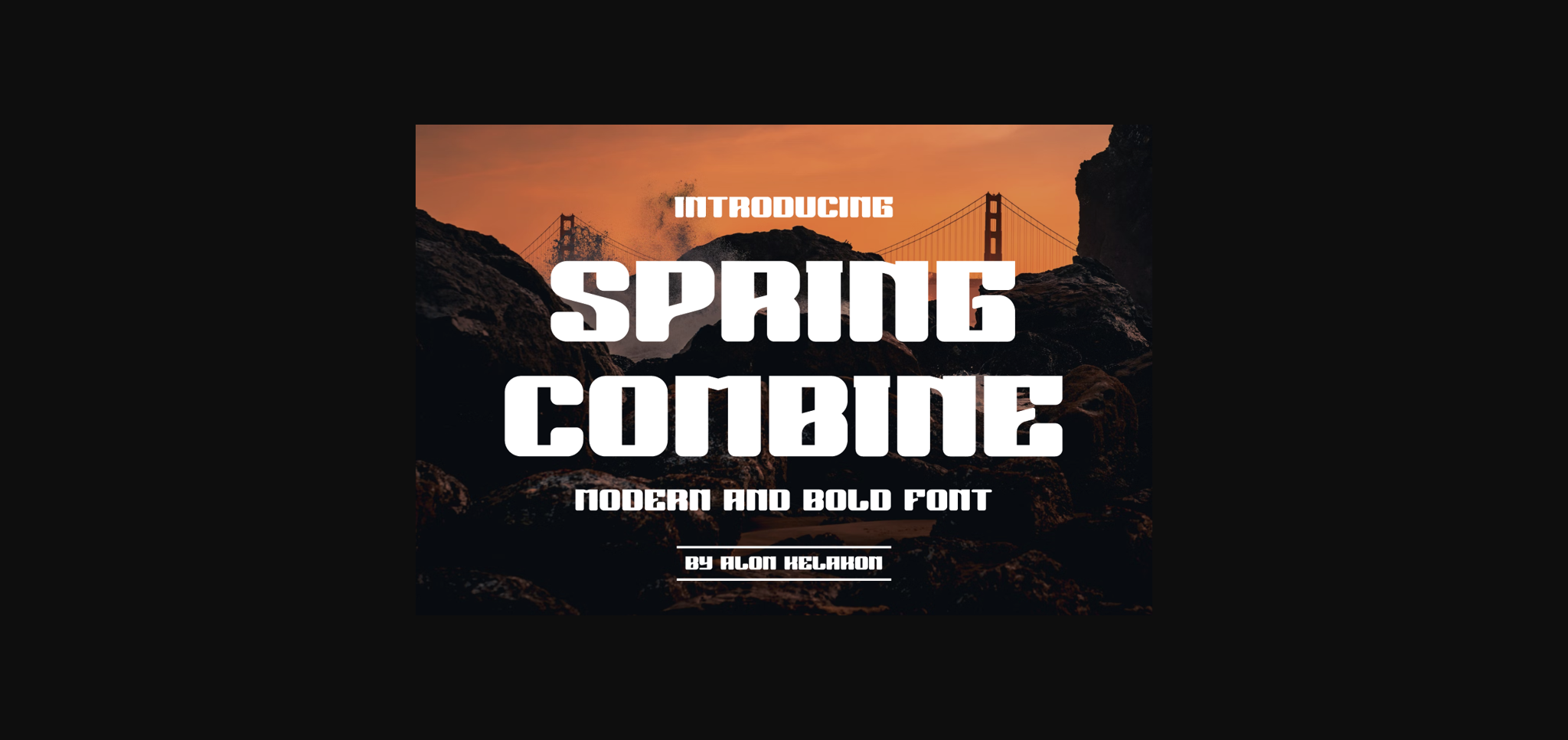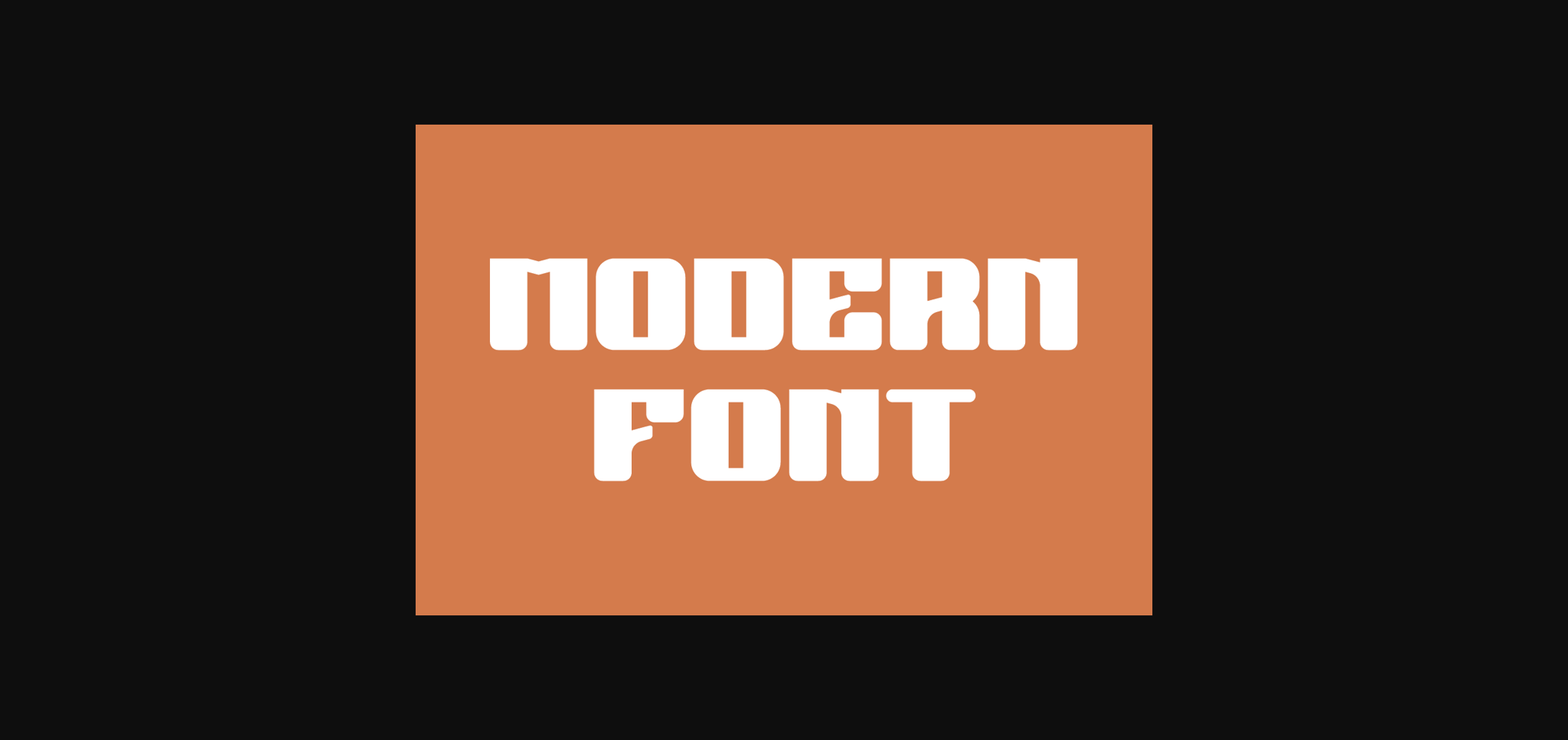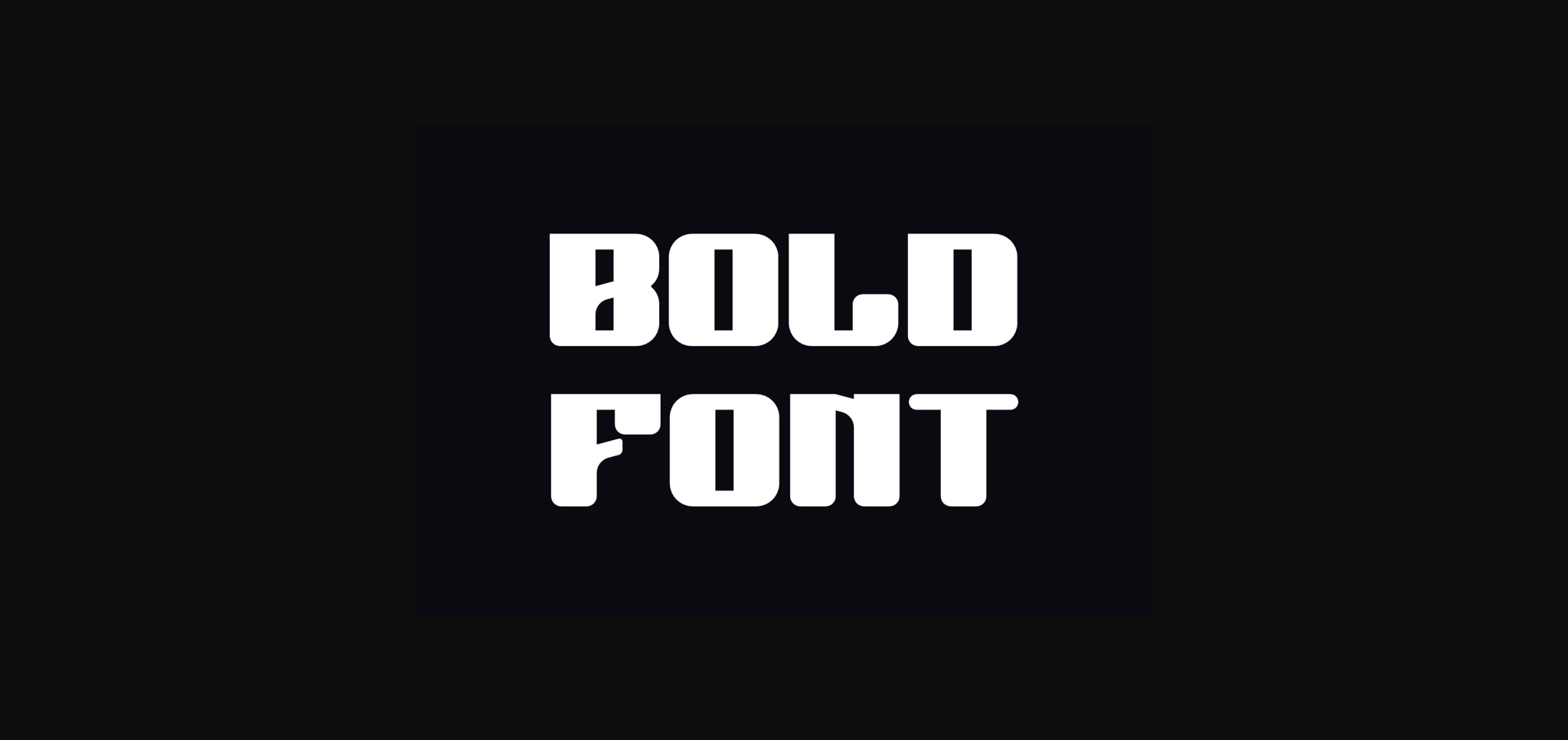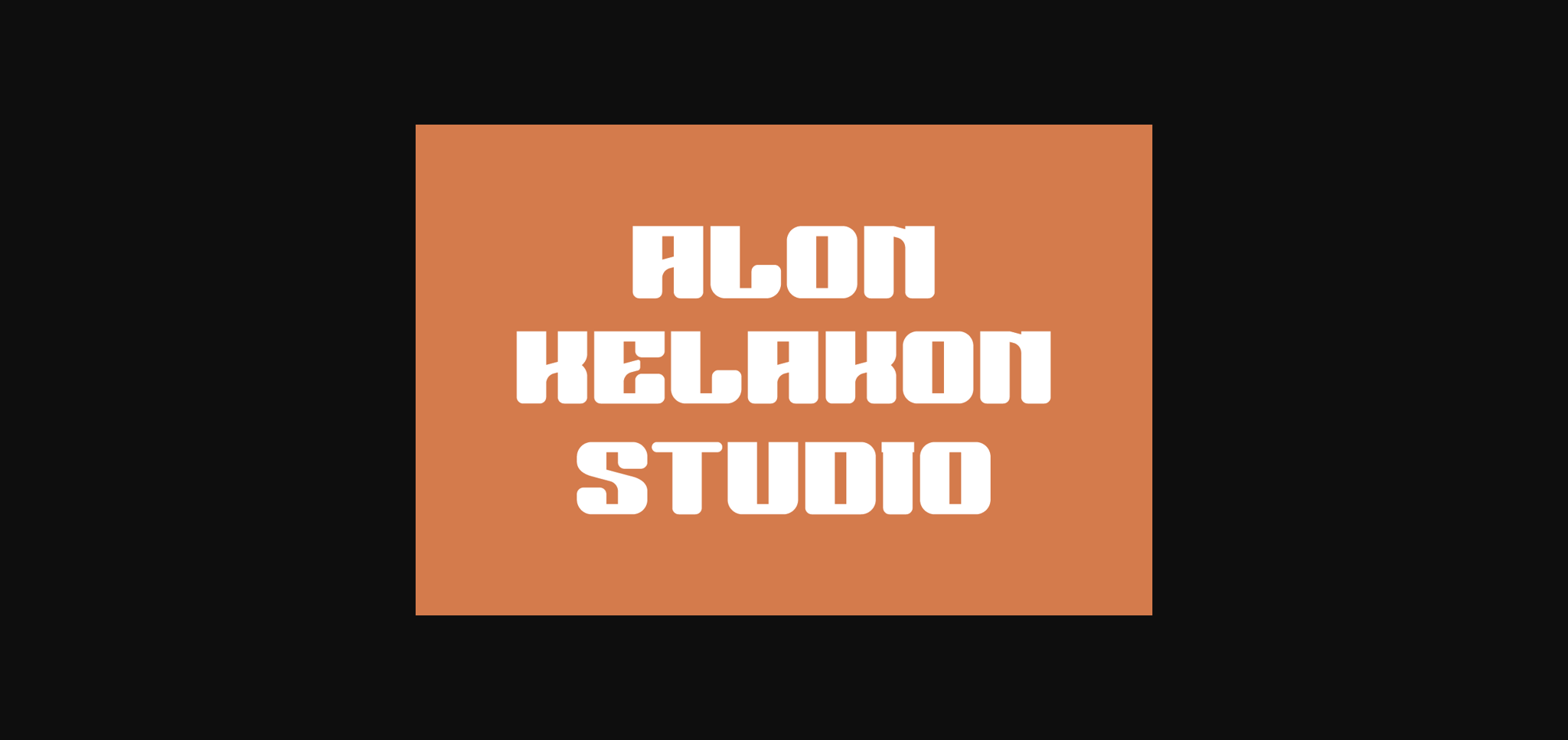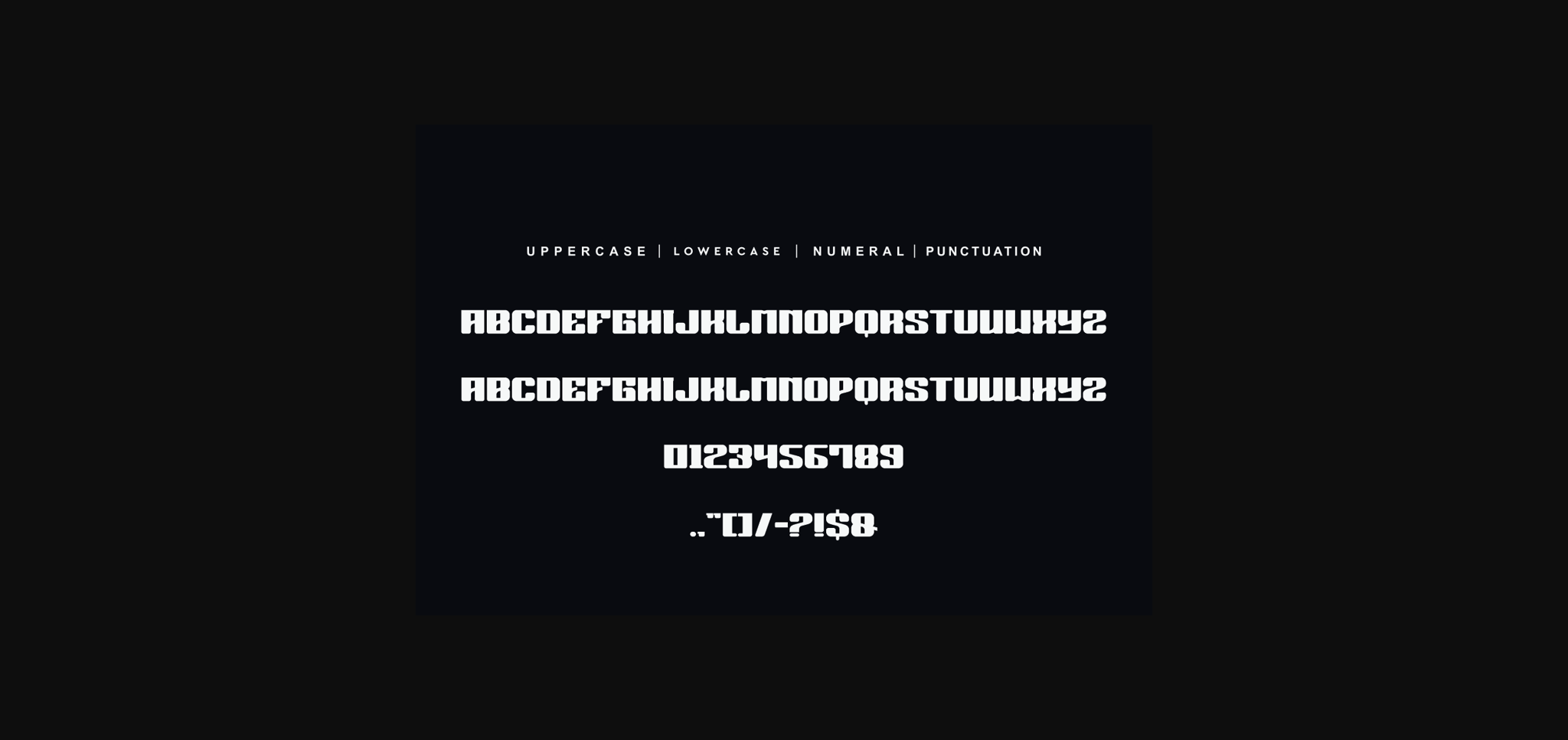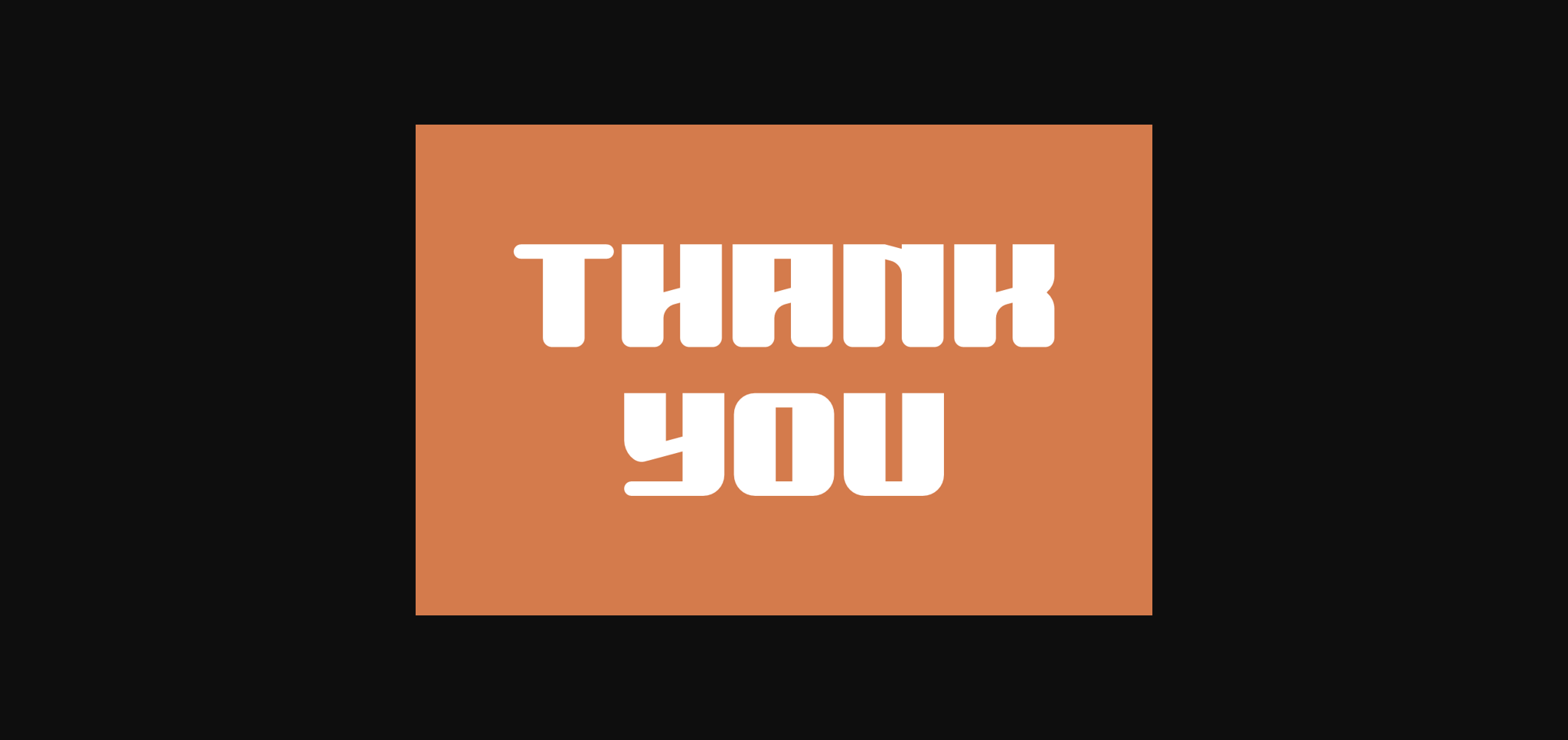
HomeSans Serif FontsSpring Combine Font Sans Serif Fonts Spring Combine Font FacebookXPinterestWhatsApp 1 of 8 ... Spring Combine Font Poster 2... Spring Combine Font Poster 3... Spring Combine Font Poster 4... Spring Combine Font Poster 5... Spring Combine Font Poster 6... Spring Combine Font Poster 7... Spring Combine Font Poster 8... About Spring Combine Font is unique . Ready to use for your design like labeling, clothing, movie sceen, poster, movie title, gigs, album covers, logos, and much more. Included OTF TTF DOWNLOAD NOW People also explored Farland Font Homeschool Doodle Font Abiding Love Font Christsha Font Olivia Mirna Font The Crayon Font Naylime Font Yukarimobile Boutique Font 457 0 TagsSpring Combine Font Previous articleFarming FontNext articleQuerty Font LEAVE A REPLY Cancel reply Comment: Please enter your comment! Name:* Please enter your name here Email:* You have entered an incorrect email address! Please enter your email address here Website: Save my name, email, and website in this browser for the next time I comment. Personal Use Free BD Algebra Personal Use Free Read more about this font Fibon Personal Use Free Read more about this font Hommy You Personal Use Free Read more about this font Ciggs Personal Use Free Read more about this font BLOG Fonts That Capture the Spirit of New York City New York City is more than just a place—it’s an experience, a rhythm, a visual language... Elegant Wedding Invitation Fonts – Handwritten & Script Fonts Top 7 Google Fonts Alternatives for Faster and Privacy-Friendly Web Design (2025) Best Fonts for YouTube Videos: Make Your Thumbnails Stand Out